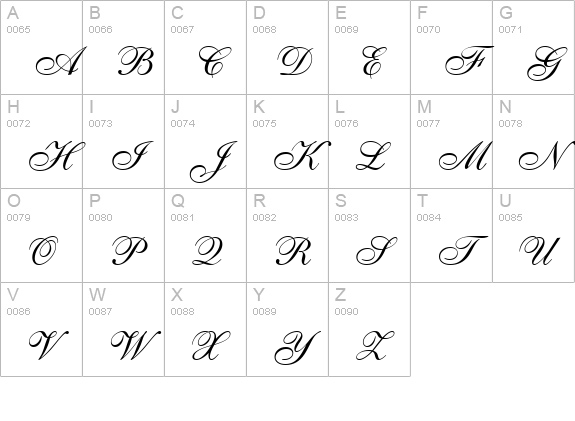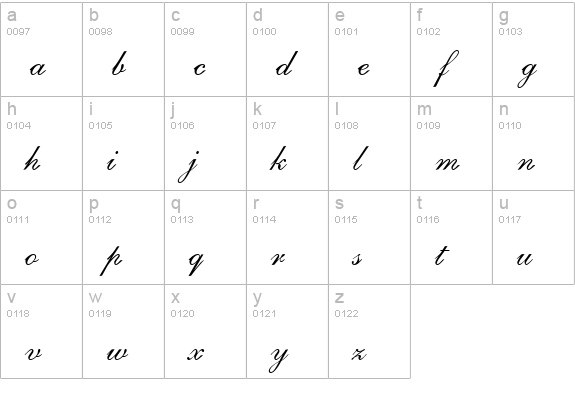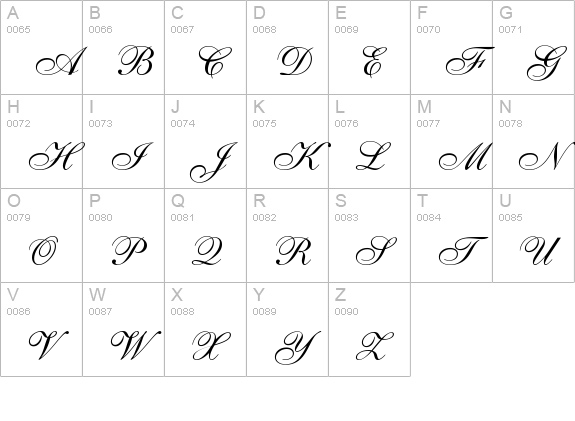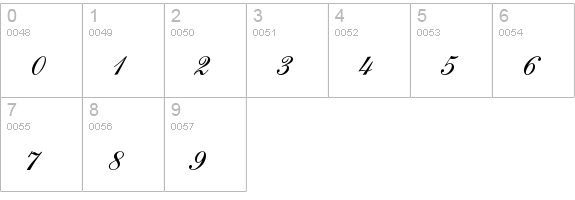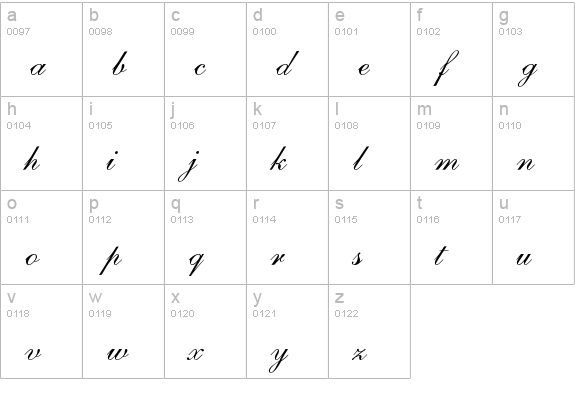
Shelley Allegro BT is a beautifully crafted font that exudes elegance and sophistication. With its delicate curves and graceful strokes, this font is perfect for adding a touch of class to any project. Whether you're designing a wedding invitation, creating a logo for a high-end brand, or simply adding a stylish flair to your personal blog, Shelley Allegro BT is sure to impress. But what sets this font apart is that it is not only stunning, but also free. That's right, you can freely download Shelley Allegro BT at FontsMarket.com. This means that you can enhance your designs without breaking the bank. Whether you're a professional designer or a budding creative, this font is accessible to all, allowing you to unleash your creativity without any limitations. Shelley Allegro BT offers a wide range of characters, including uppercase and lowercase letters, numbers, and punctuation marks. This versatility makes it suitable for various design purposes, from headlines and titles to body text and captions. The beauty of Shelley Allegro BT lies in its timeless appeal. It effortlessly combines classic elegance with a modern twist, making it suitable for both traditional and contemporary designs. The letters flow seamlessly, creating a harmonious and pleasing visual experience. Whether you're designing for print or digital platforms, Shelley Allegro BT ensures legibility and readability at any size. It maintains its exquisite details even when scaled down, ensuring that your design remains visually stunning across different mediums. So, why wait? Download Shelley Allegro BT for free at FontsMarket.com and elevate your designs to new heights. With this font in your toolkit, you can create captivating visuals that leave a lasting impression. Don't miss out on the opportunity to add a touch of elegance to your next project.